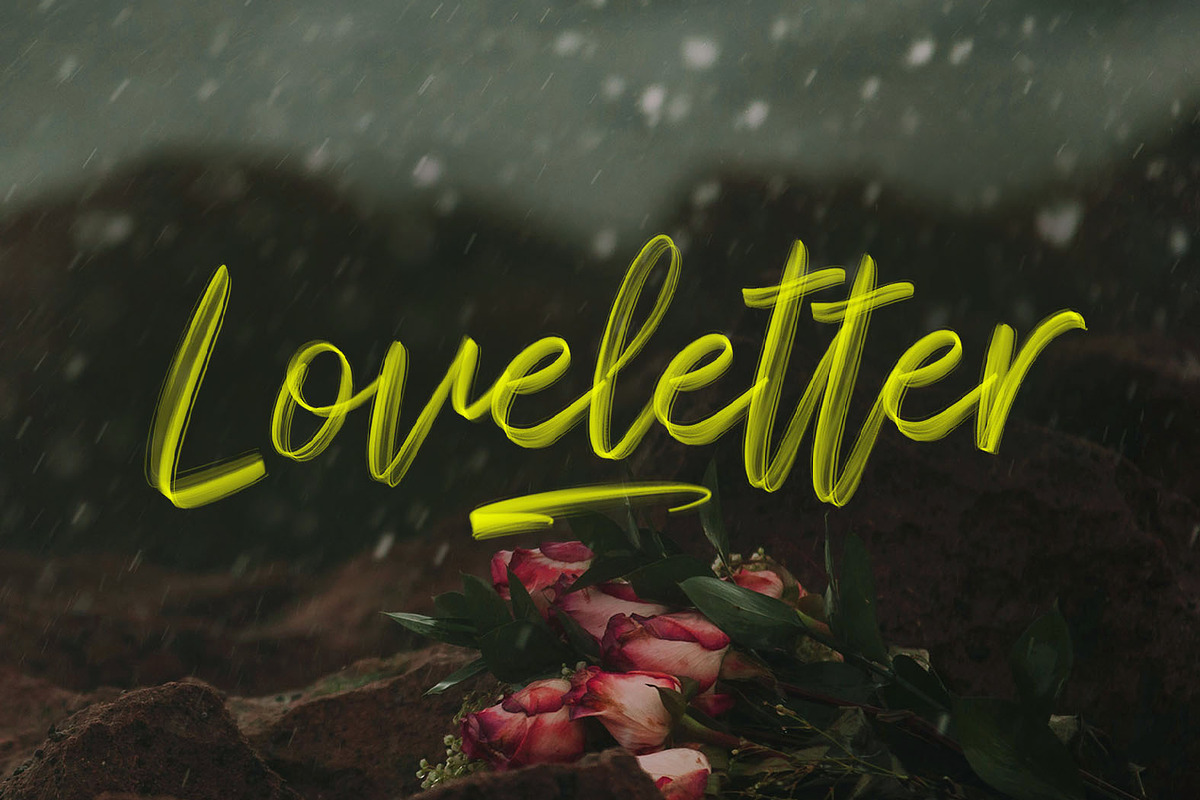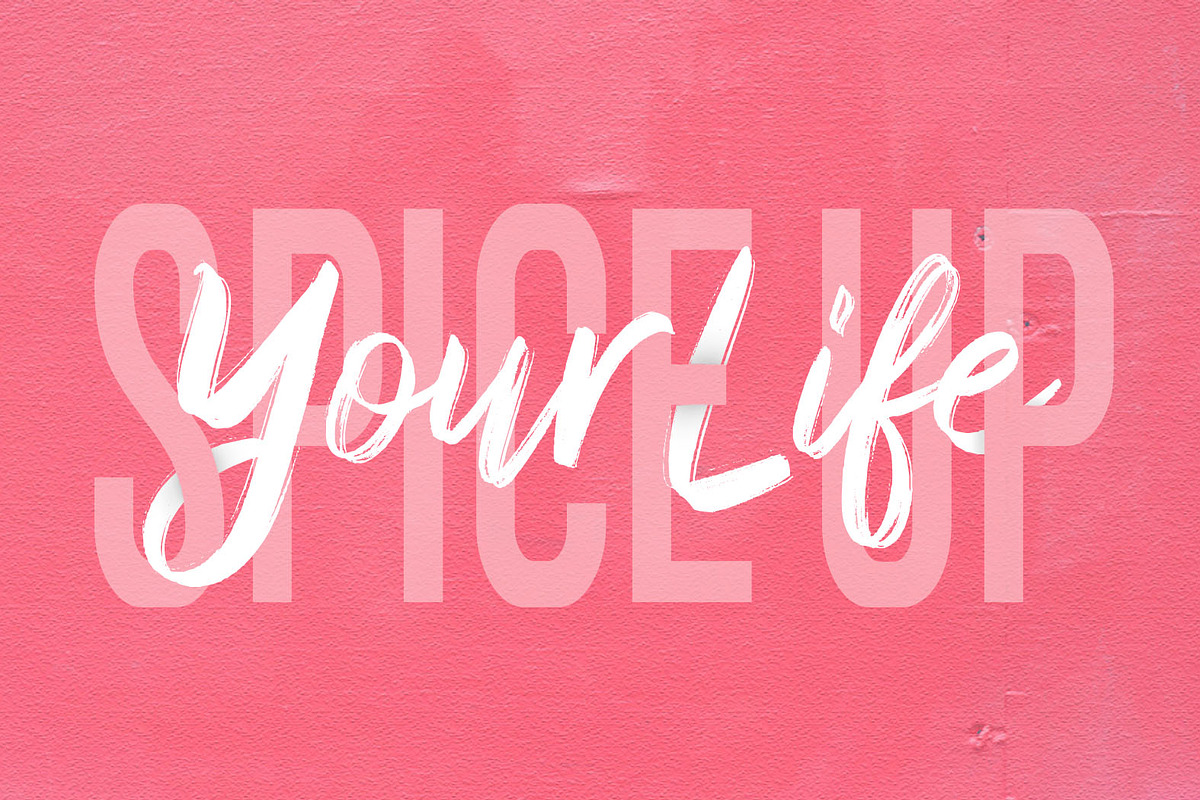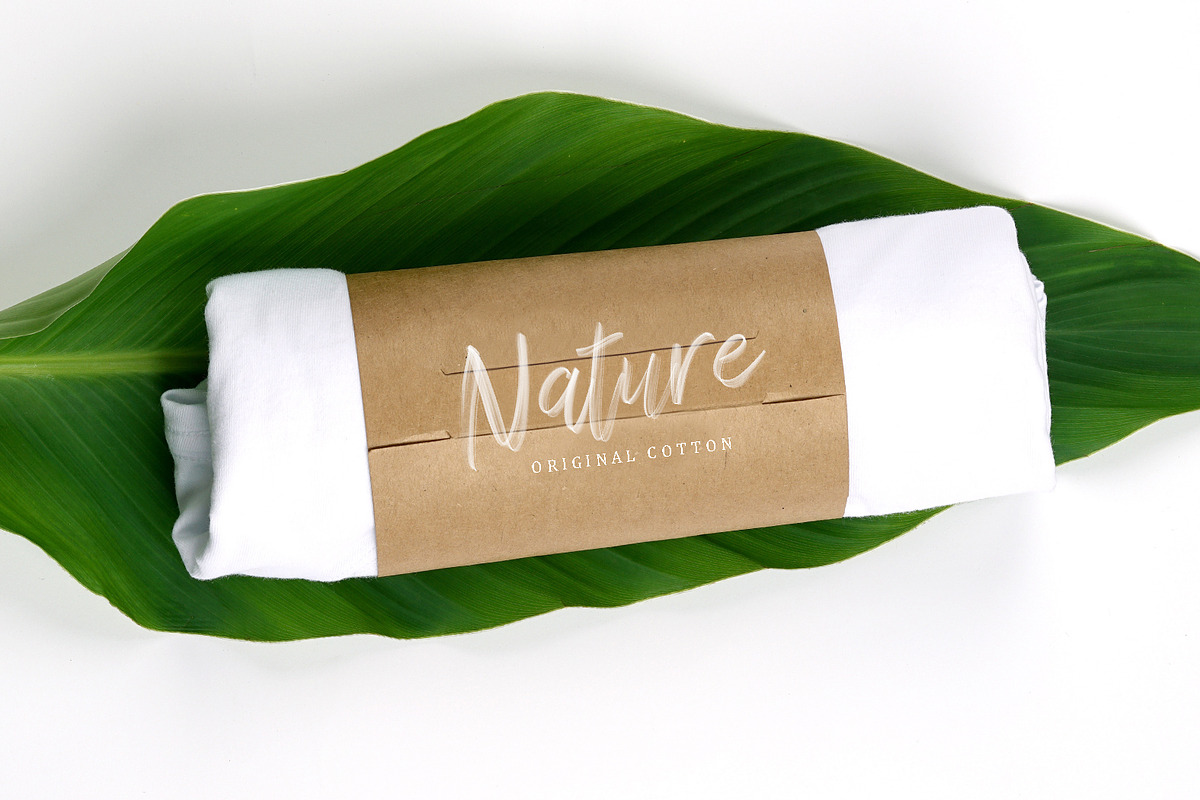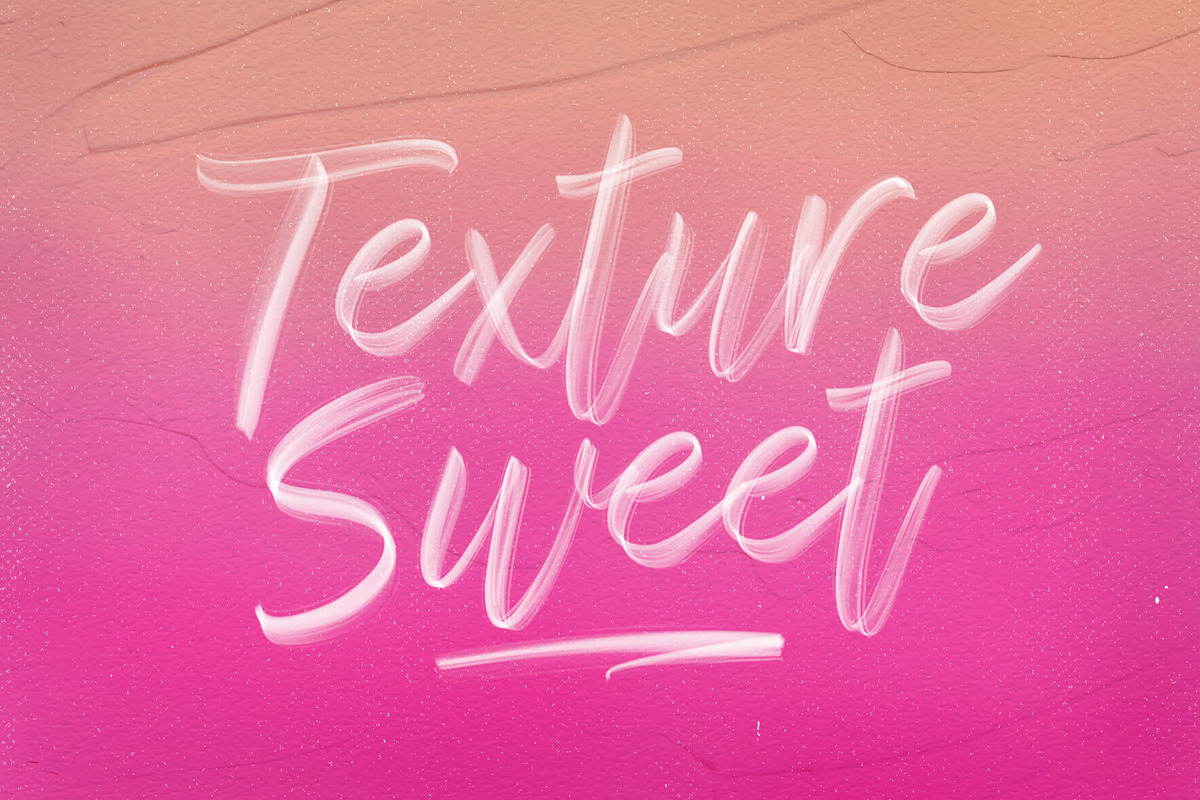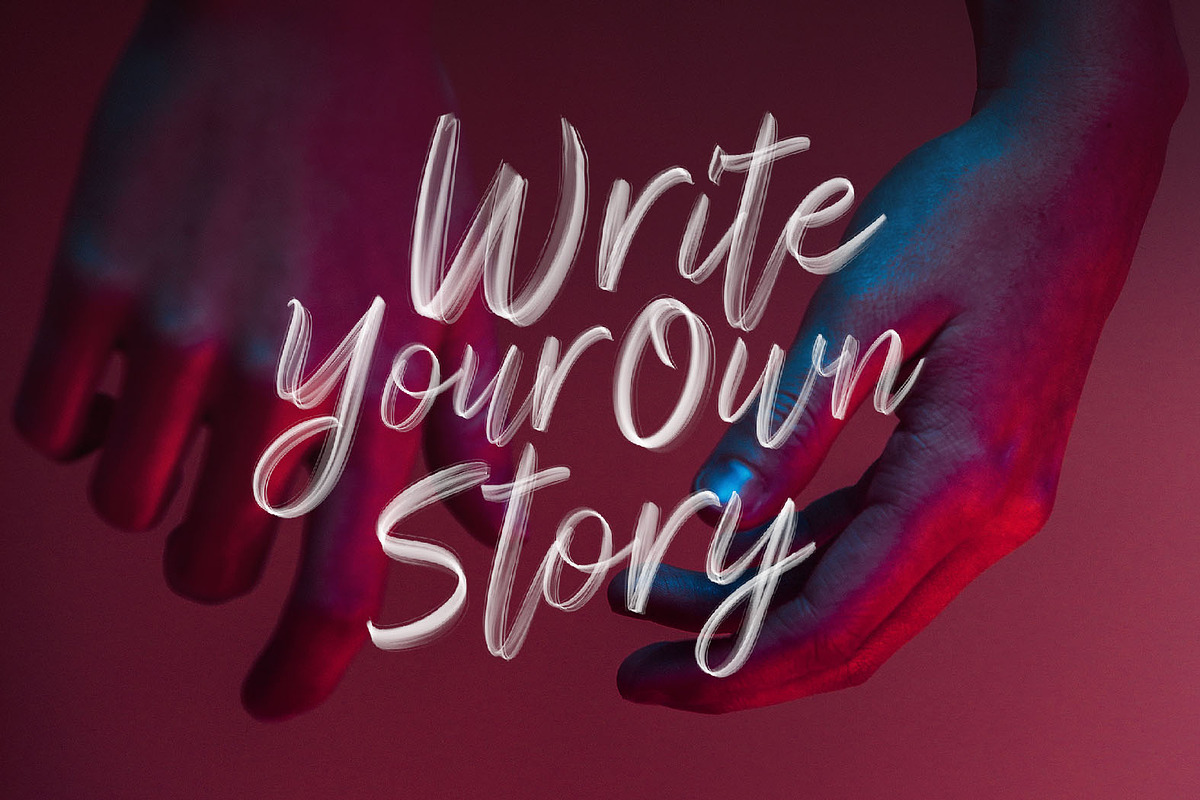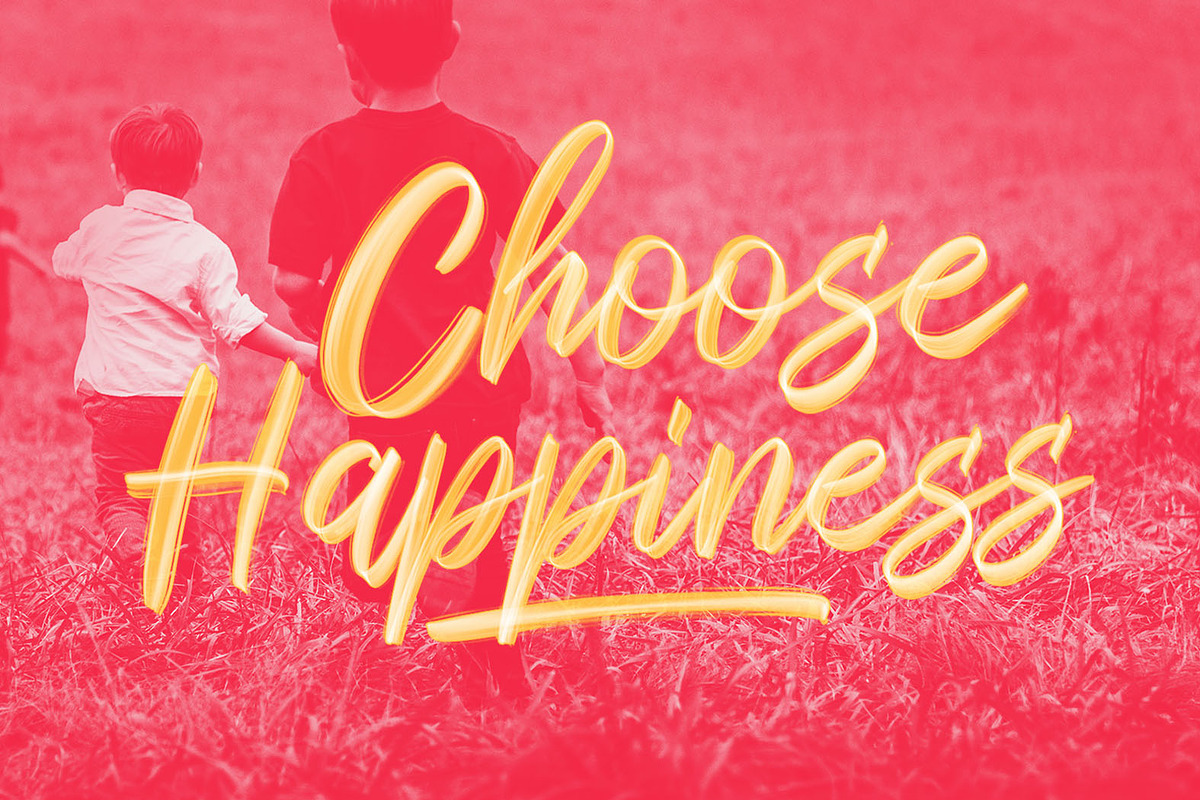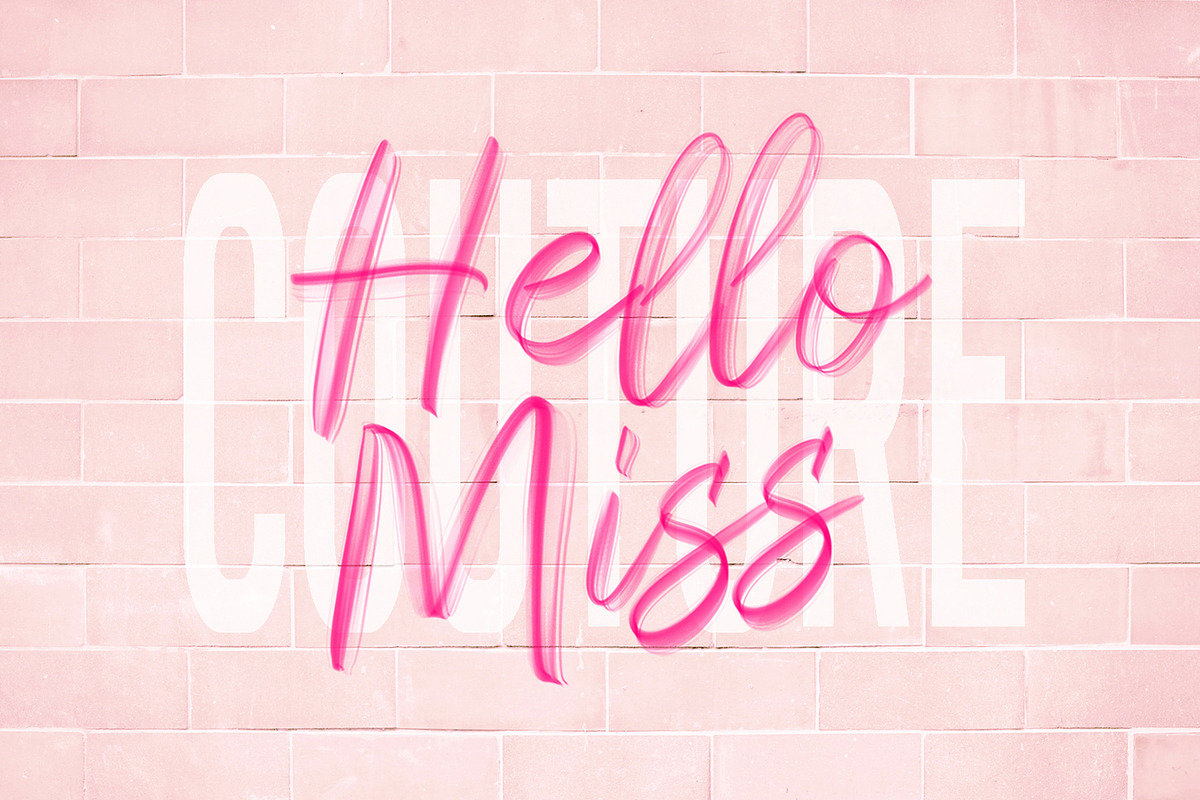
Sparose SVG Font
Sparose SVG Font made with a soft transparent line texture, Don't worry you still have the traditional vector format as usual. Suitable for use in title design such as invitations, signboards, book titles, stationery designs, quotes, branding, logos, greeting cards, packaging designs, posters, and more.
Sparose SVG This font has ligatures, and also has 5 beautiful Swash, active by typing @@ ## %% ^^ &&. OpenType-SVG has no language support, and if for ordinary fonts it has multi-language support.
Why Sparose SVG Font is worth a look
Sparose SVG Font by Dhan Studio fits naturally into Branding, posters, packaging, typography.